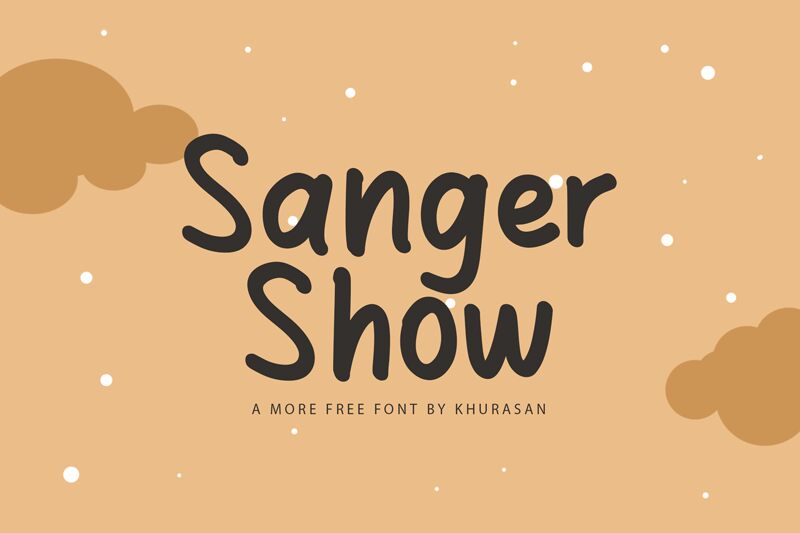
Sanger Show
Sanger Show, crafted by the talented Khurasan, is a handwritten font that exudes modern charm and artistic flair.
With its fancy display style, this font is the quintessential choice for projects that require a personal touch with a dash of sophistication. From eye-catching posters to stylish logos, elegant magazine headers to unique book covers, Sanger Show brings your creative visions to life. Its versatility shines across an array of mediums including banners and more, ensuring your designs not only capture attention but also remain memorable.
Embrace Sanger Show in your design toolkit and watch as it transforms your ideas into standout masterpieces with its distinctive handwritten appeal.